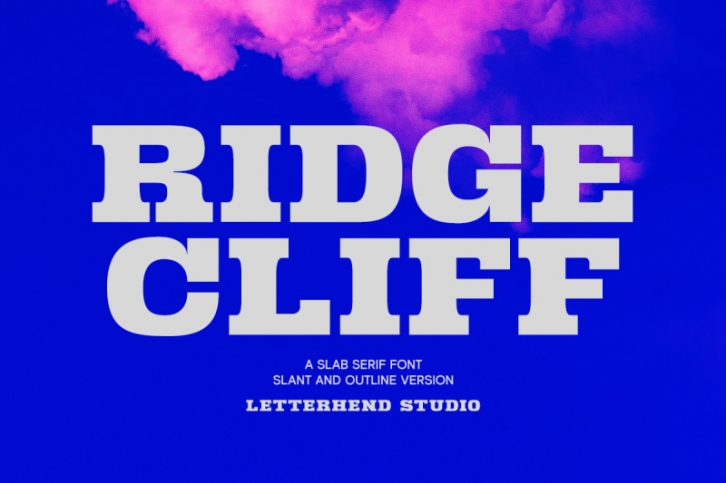
Ridge Cliff is a slab serif typeface with strong look and feel.This type of font perfectly made to be applied especially in logo, headline, signage and the other various formal forms such as invitations, labels, logos, magazines, books, greeting / wedding cards, packaging, fashion, make up, stationery, novels, labels or any type of advertising purpose.
• uppercase & lowercase
• numbers and punctuation
• multilingual
• PUA encoded